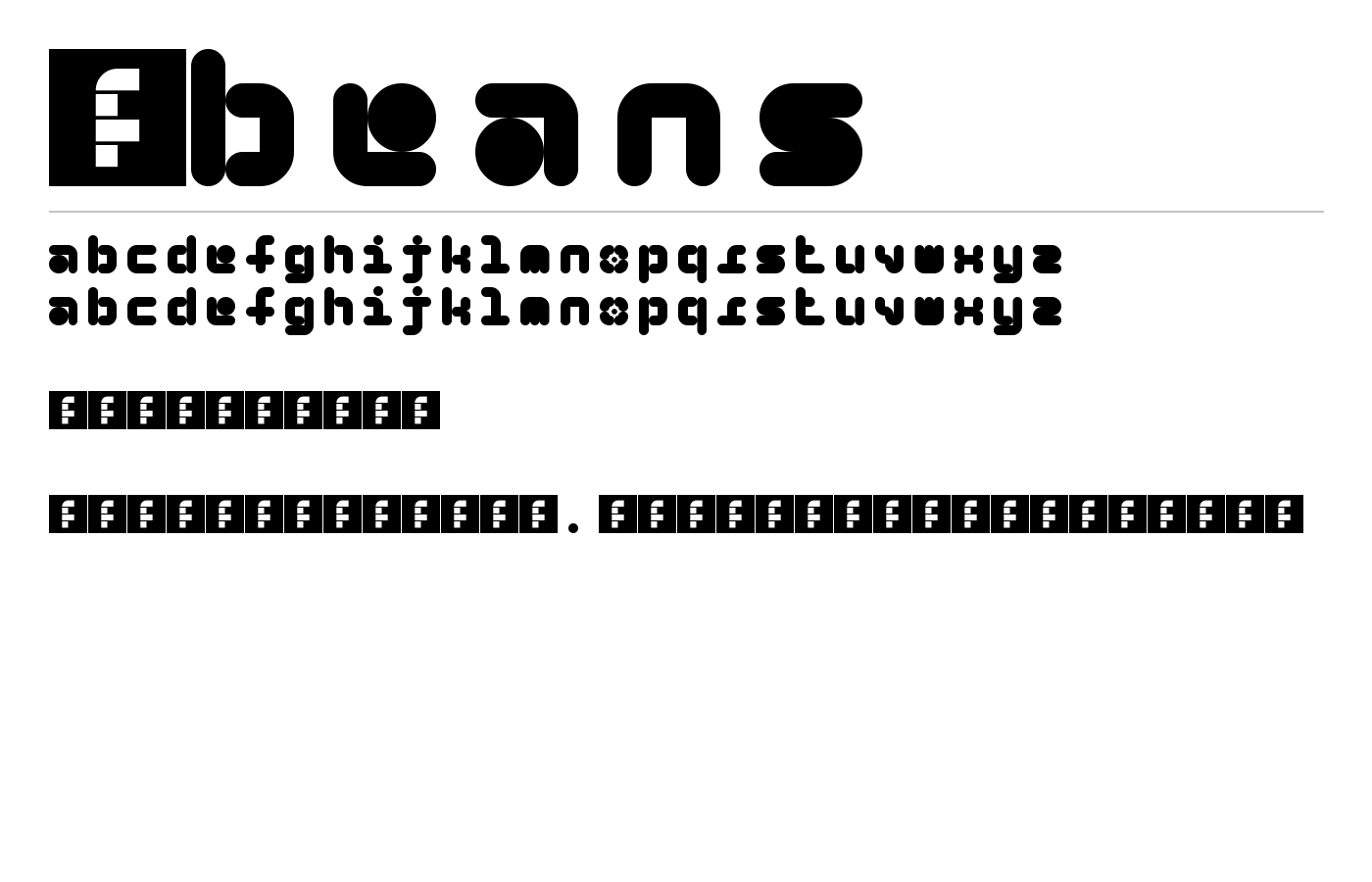
5Beans is a bold, geometric sans serif font with a playful and modern vibe, featuring rounded corners and thick strokes that create a strong visual presence. Its distinctive letterforms, including unique details like the flower-shaped “o,” make it ideal for eye-catching headlines, logos, and creative branding. This font works best where a fun yet sturdy style is needed to grab attention and convey a youthful, contemporary personality.
5Beans Font
About 5Beans Font
| Font family | 5Beans Font |
| Designer | Noah - 11 year old typomaniac |